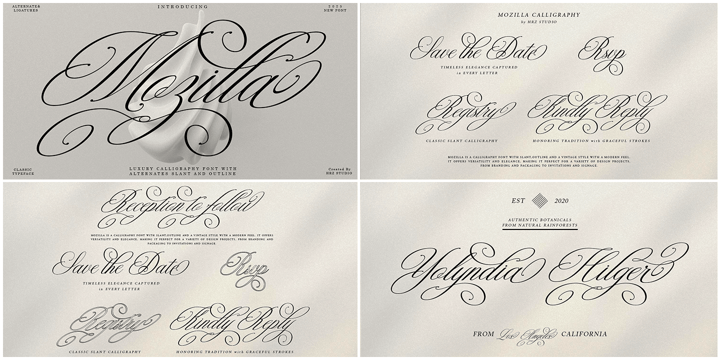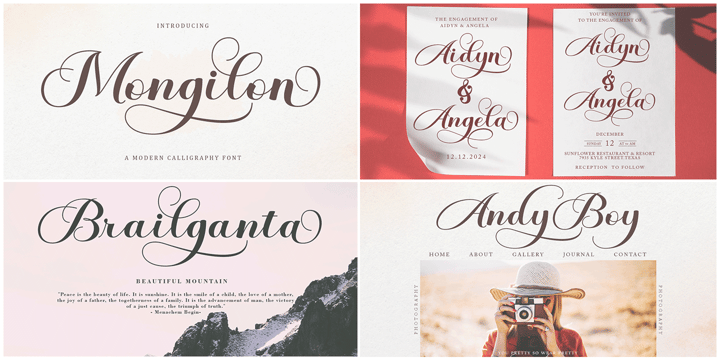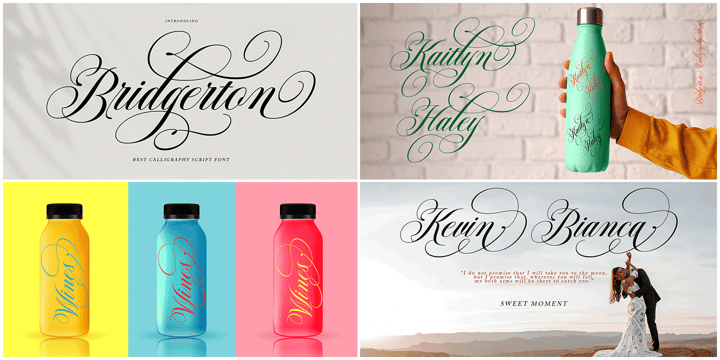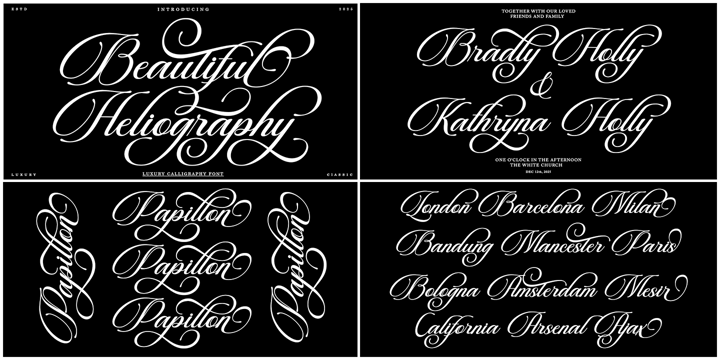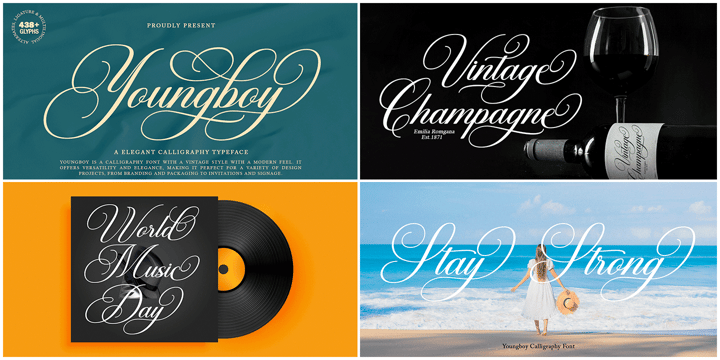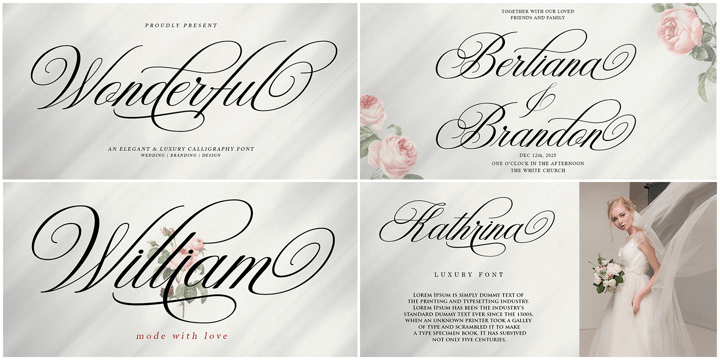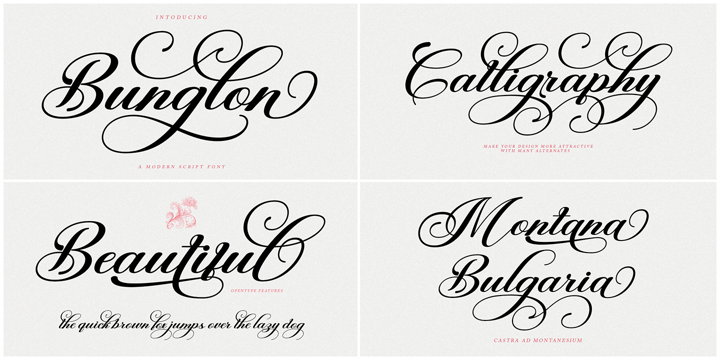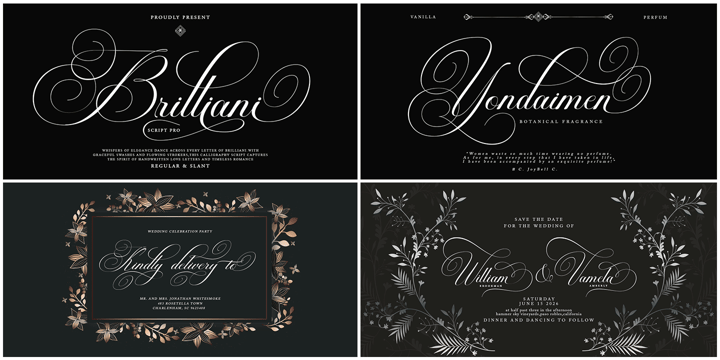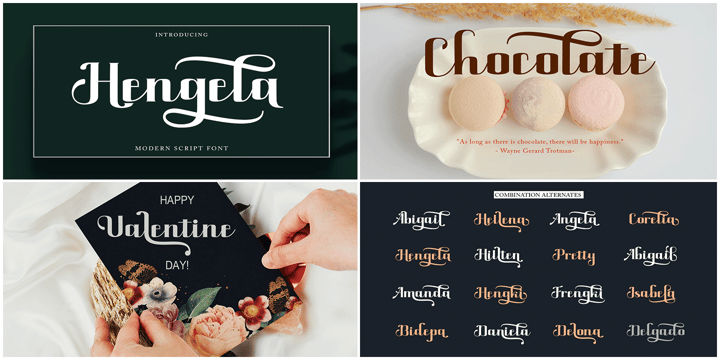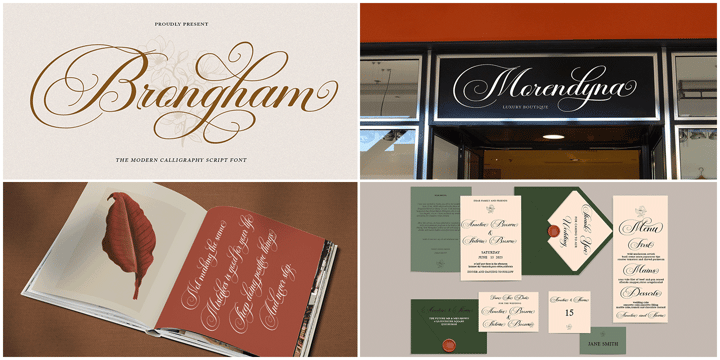
The Modern Collection Calligraphy Font Bundle
This is your chance to get all the fonts I have updated Including 52 Fonts in 42 typefaces. This bundle includes various font styles such as calligraphy, outline, slant , script and more. with hundreds of glyphs, including alternates, bindings, sweeps, and international language support.